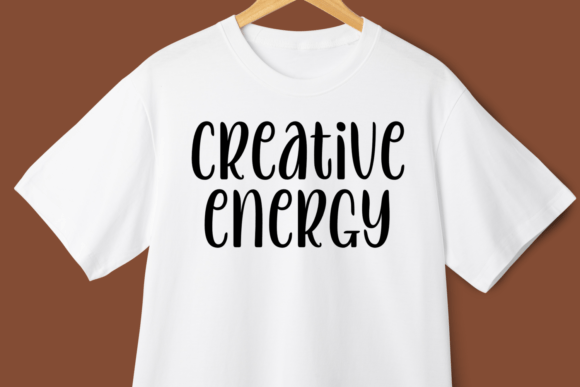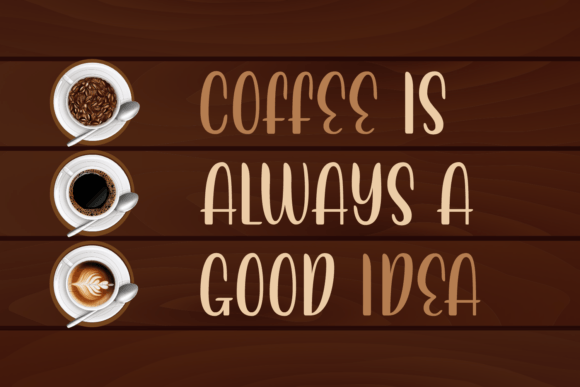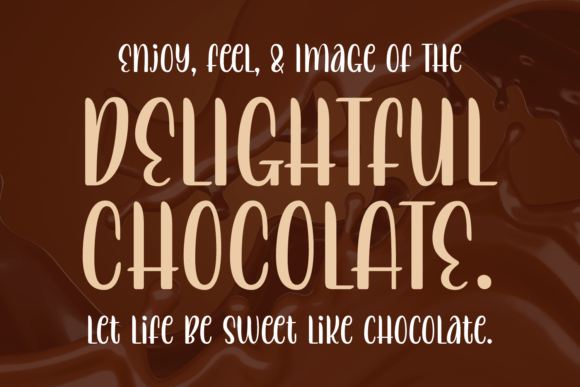
The Perfect Cup: Discovering Enjoy Coffee Font
I’ll never forget the struggle I faced while working on a branding project for a trendy coffee shop. My client wanted a font that exuded elegance, sophistication, and a touch of modernity. I scoured the internet, tried countless fonts, but nothing seemed to fit the bill. That was until I stumbled upon Enjoy Coffee Font. ✨
This modern handwritten typeface has been a game-changer for my design projects, and I’m excited to share my experience with you. Whether you’re a designer, crafter, or creative hobbyist, Enjoy Coffee Font is definitely worth getting to know.
- ✨ Elegant and modern handwritten style
- ✅ Perfect for high-end branding, packaging, and personal projects
- 💡 Highly legible, even at small font sizes
- 🎨 Beautifully crafted with attention to detail
While Enjoy Coffee Font is an excellent choice, there are a few things to keep in mind: 🤔
- ⚠️ Limited availability of extended language support
- ⚠️ Some users may find the font too delicate for certain design applications
- Experiment with OpenType features, such as ligatures and stylistic alternates, to add visual interest to your design.
Enjoy Coffee Font was crafted with inspiration from modern coffee culture and the art of handwriting. The designer aimed to create a font that captures the essence of a perfectly crafted cup of coffee – elegant, refined, and full of character.
Q: What type of projects is Enjoy Coffee Font best suited for?
A: Enjoy Coffee Font is perfect for high-end branding, packaging, and personal projects that require a touch of elegance and sophistication.
Q: Does Enjoy Coffee Font support OpenType features?
A: Yes, Enjoy Coffee Font supports OpenType features, including ligatures, stylistic alternates, and glyphs.